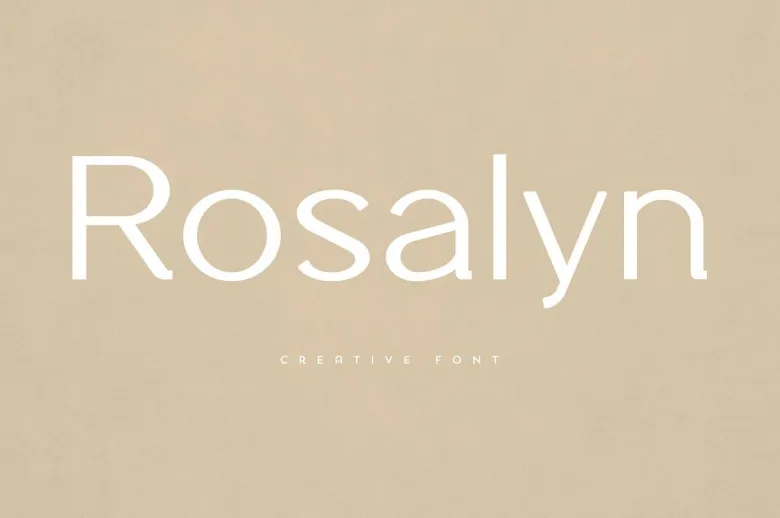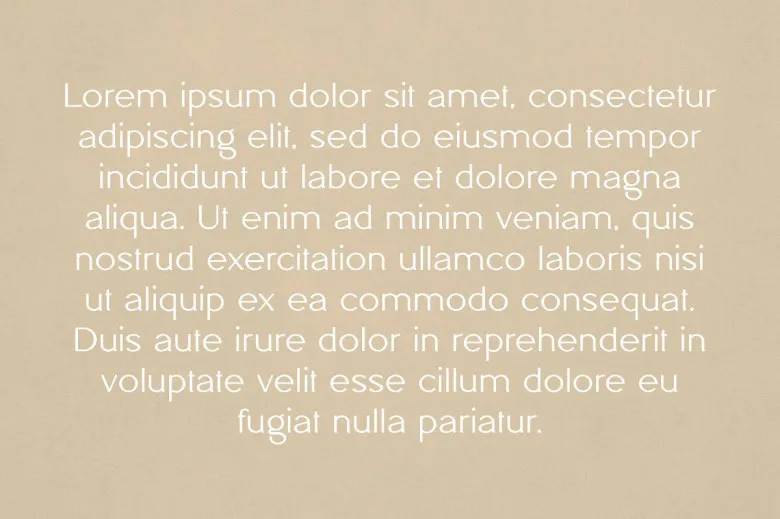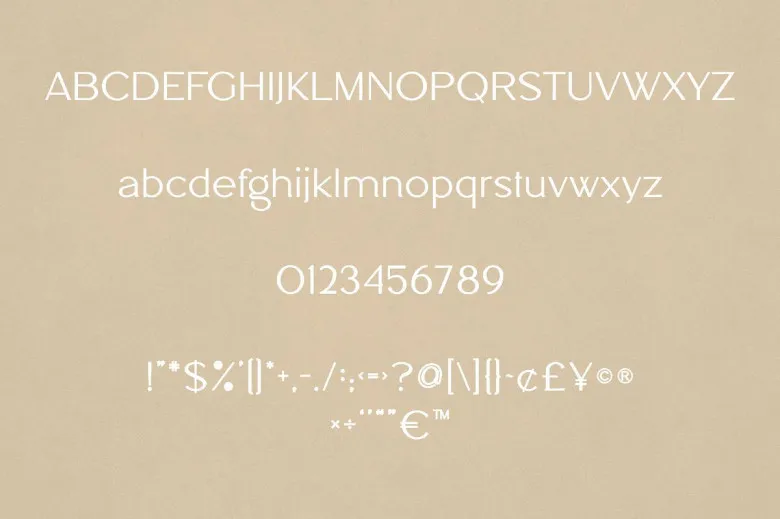
Rosalyn Font
Rosalyn is a chic and versatile sans serif font that leaves a lasting impression with its distinctive typographic style. Perfect for headlines, logos, branding, or simple text applications, this font effortlessly enhances any design project.
Ideal for creating impactful designs, Rosalyn brings flair and sophistication to headlines, logos, and branding campaigns. It can also be used as an eye-catching text overlay on images, giving your content a modern and elegant touch.
Whether for homeware designs, product packaging, magazine headlines, or text overlays on background images, Rosalyn adapts seamlessly to various design needs. Its versatility makes it a go-to choice for projects that demand clarity and style.